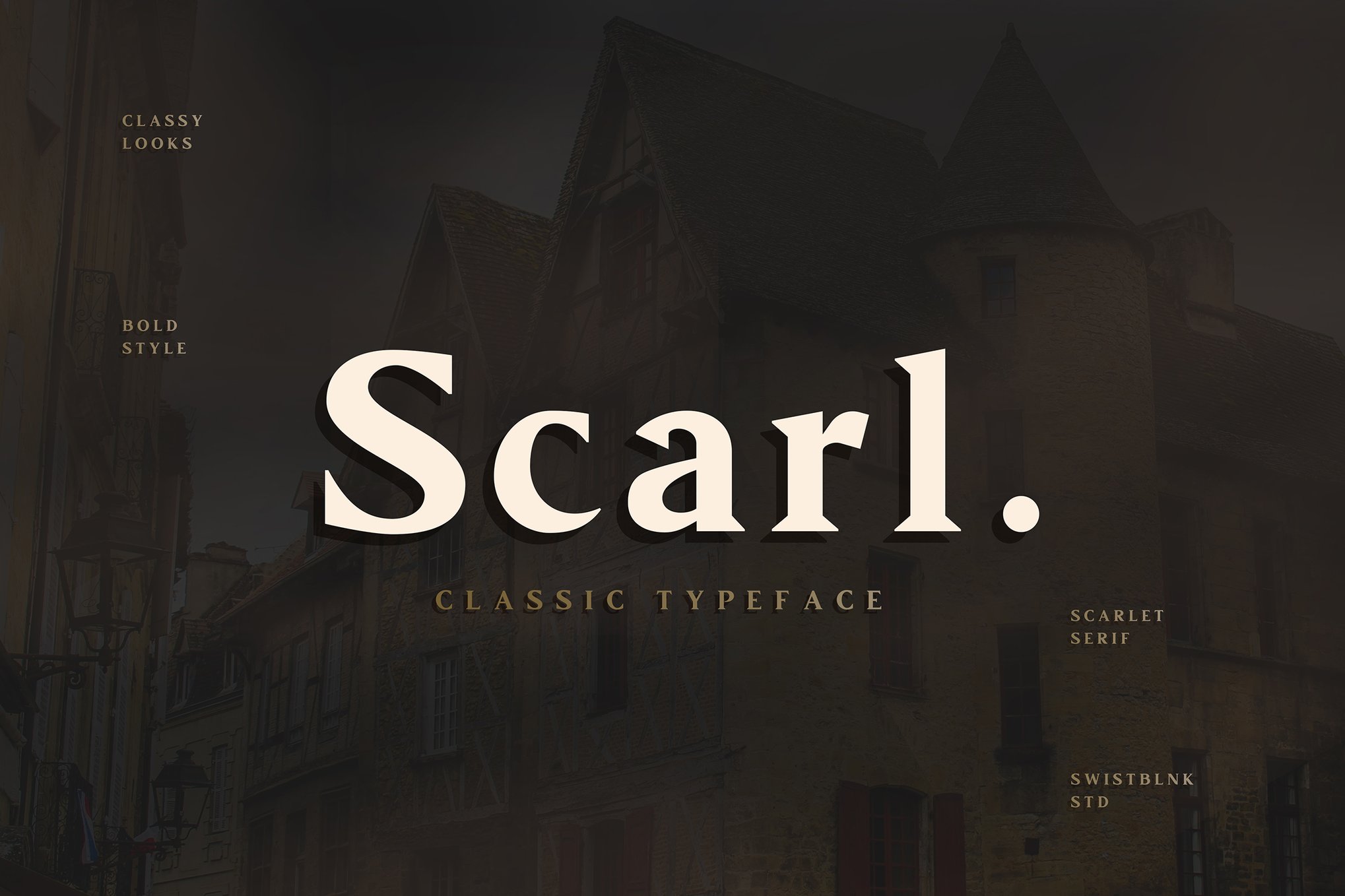
Scarllet Serif Font
Scarllet Serif Font is perfect for romantic book covers, elegant wedding stationery, luxury beauty brands, sophisticated magazine layouts, high-end fashion editorials, premium wine labels, boutique hotel branding, intimate restaurant menus, refined greeting cards, and cultured lifestyle publications.
Scarllet Serif Font is exciting because it masterfully captures the essence of romantic elegance and timeless femininity, creating a serif typeface that embodies passion, sophistication, and intimate charm. This font brings graceful distinction and emotional depth to any project, making it ideal for brands that want to convey romance, luxury, and refined sensuality. Its flowing serifs and elegant proportions create an atmosphere of sophisticated intimacy that resonates with audiences who appreciate beauty, emotion, and cultured refinement.
Scarllet Serif Font family includes light, regular, medium, bold, and black weights, each available in roman and italic styles with elegant ligatures and romantic alternates, providing designers with comprehensive tools for creating sophisticated romantic typography and emotionally engaging brand experiences.
This enchanting serif typeface combines classical typography traditions with contemporary romantic aesthetics, making Scarllet Serif Font Free Download a premium choice for projects requiring both elegance and emotional appeal. The font's beautifully crafted letterforms feature graceful serif details and refined curves that evoke the sophistication of romantic literature and intimate correspondence.
Whether you're designing luxury romance branding, elegant editorial publications, or sophisticated hospitality materials, Scarllet Serif Font delivers unmatched romantic appeal and sophisticated charm. The font excels in both intimate personal applications and large-scale luxury environments where emotional connection and refined taste create memorable experiences.
Creative professionals appreciate Scarllet Serif Font for its ability to instantly communicate romance and sophistication while maintaining excellent readability across various luxury applications. The font's elegant character makes it particularly effective for beauty brands, luxury hotels, and romantic event planning companies.
Each character reflects the graceful artistry of romantic typography, featuring flowing serifs and elegant proportions that create typography worthy of love letters, intimate poetry, and the most sophisticated romantic experiences.